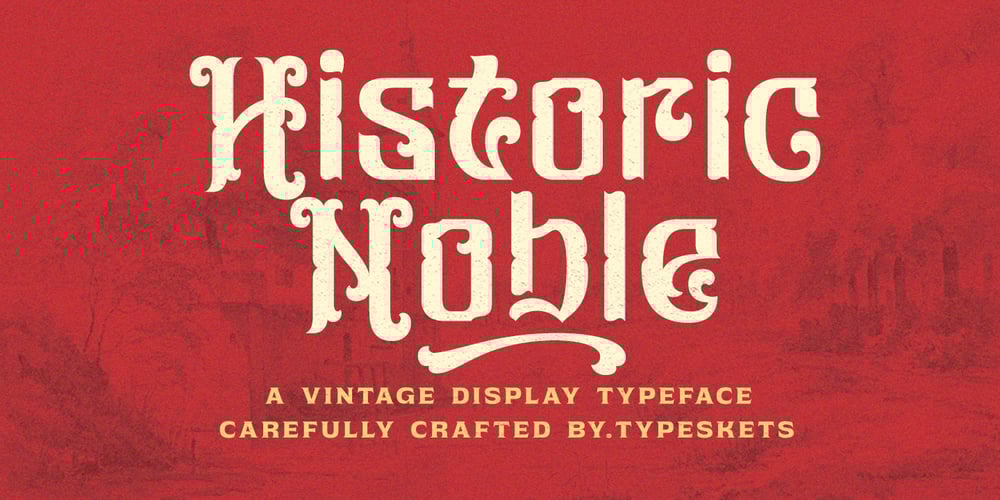
Historic Noble Font Family was designed by Sahrul Hidayat and published by Typeskets. Historic Noble contains 1 styles and family package options. Historic Noble – Vintage Display TypefaceStep back in time with Historic Noble, a masterfully designed vintage display typeface that exudes elegance, tradition, and sophistication. Drawing inspiration from historical lettering and classic typography, this font is perfect for designs that require a bold yet refined statement.With its intricate curves, ornamental details, and timeless character, Historic Noble brings a touch of heritage to any project. Whether you’re working on logos, book covers, posters, branding, wedding invitations, or packaging, this font adds a regal and historic flair that stands out beautifully.Historic Noble is not just a font—it’s a journey into the past, a tribute to artistry, and a versatile tool for creating unforgettable designs. Let your projects shine with its noble charm!